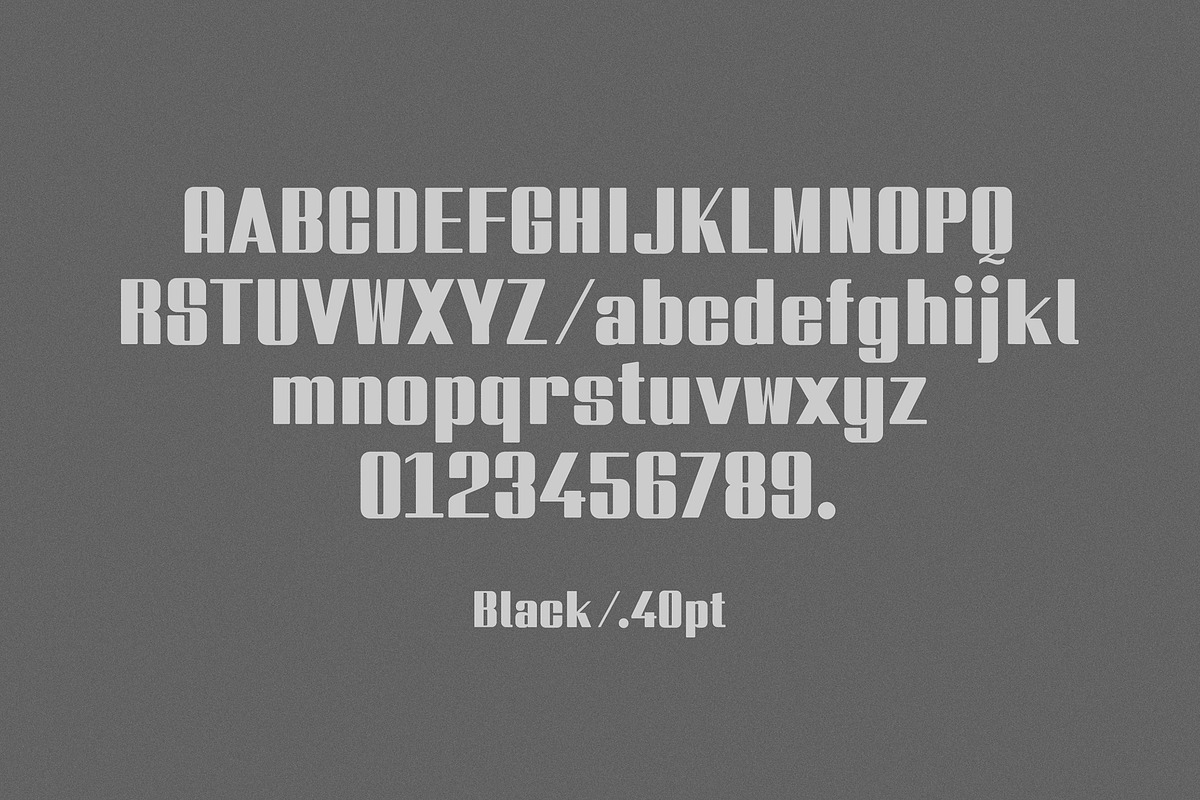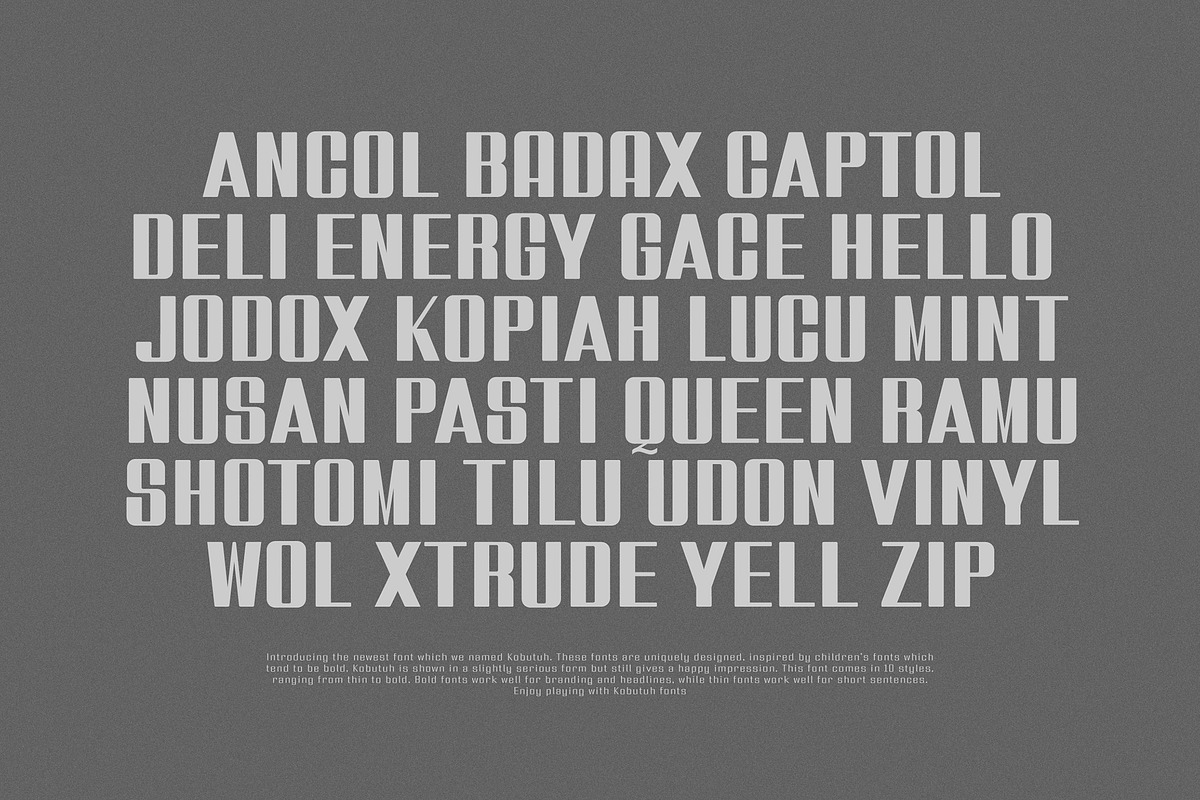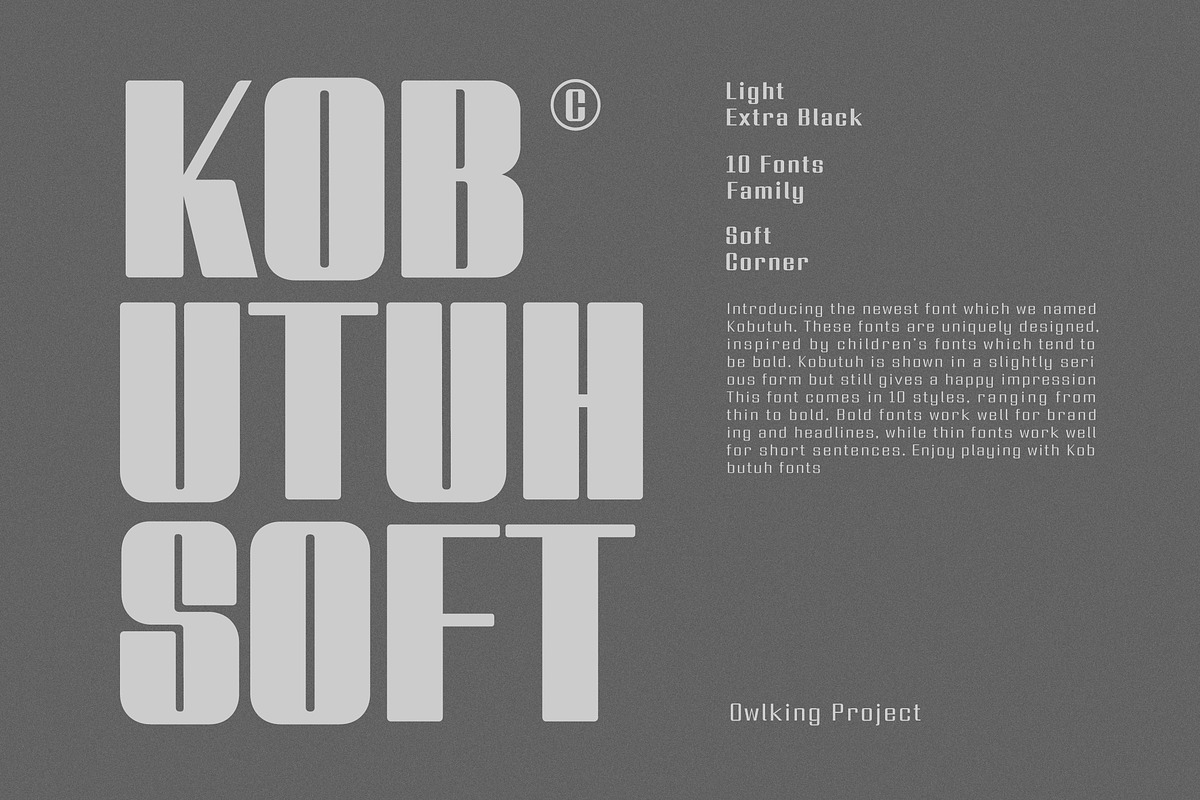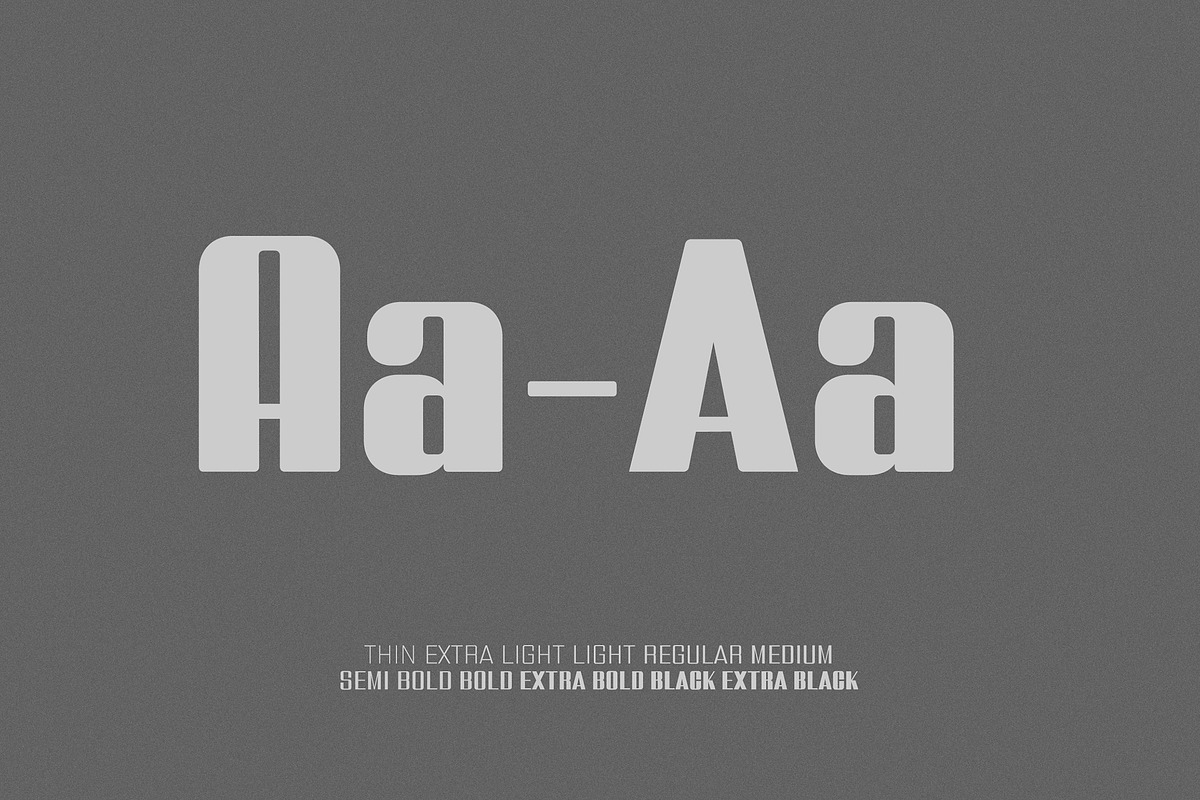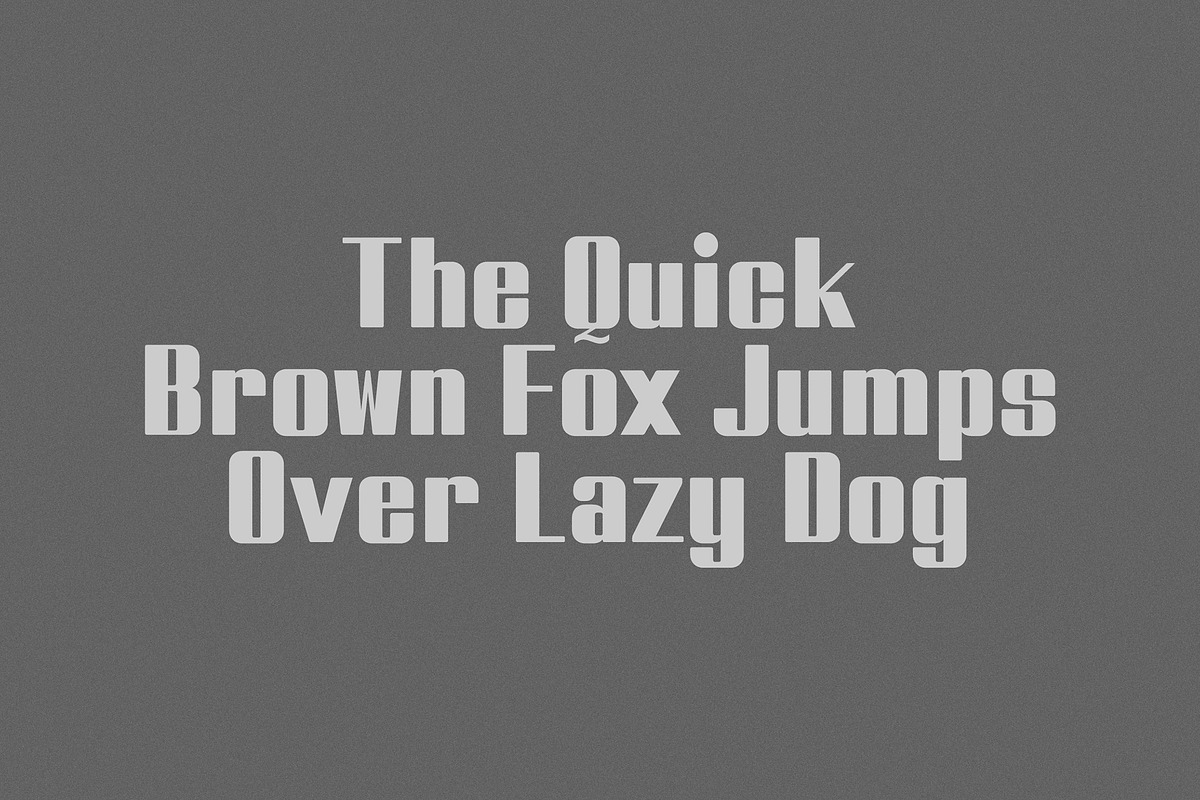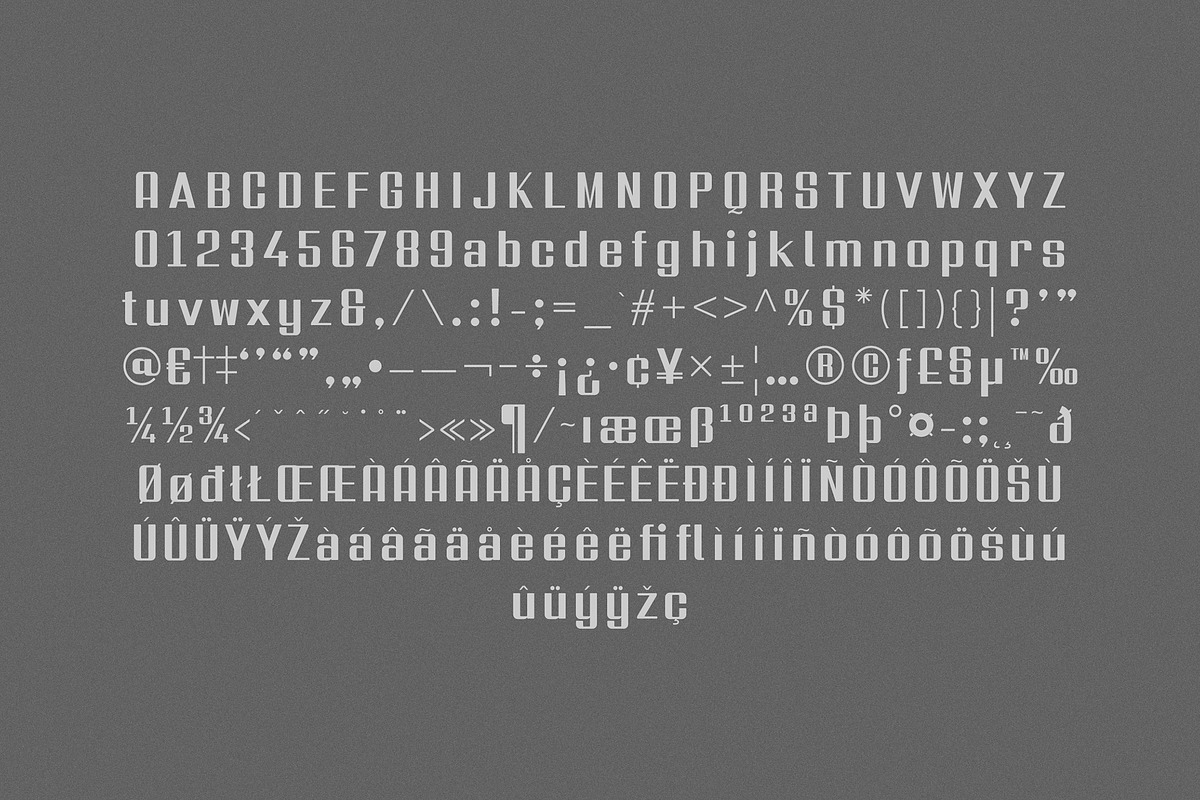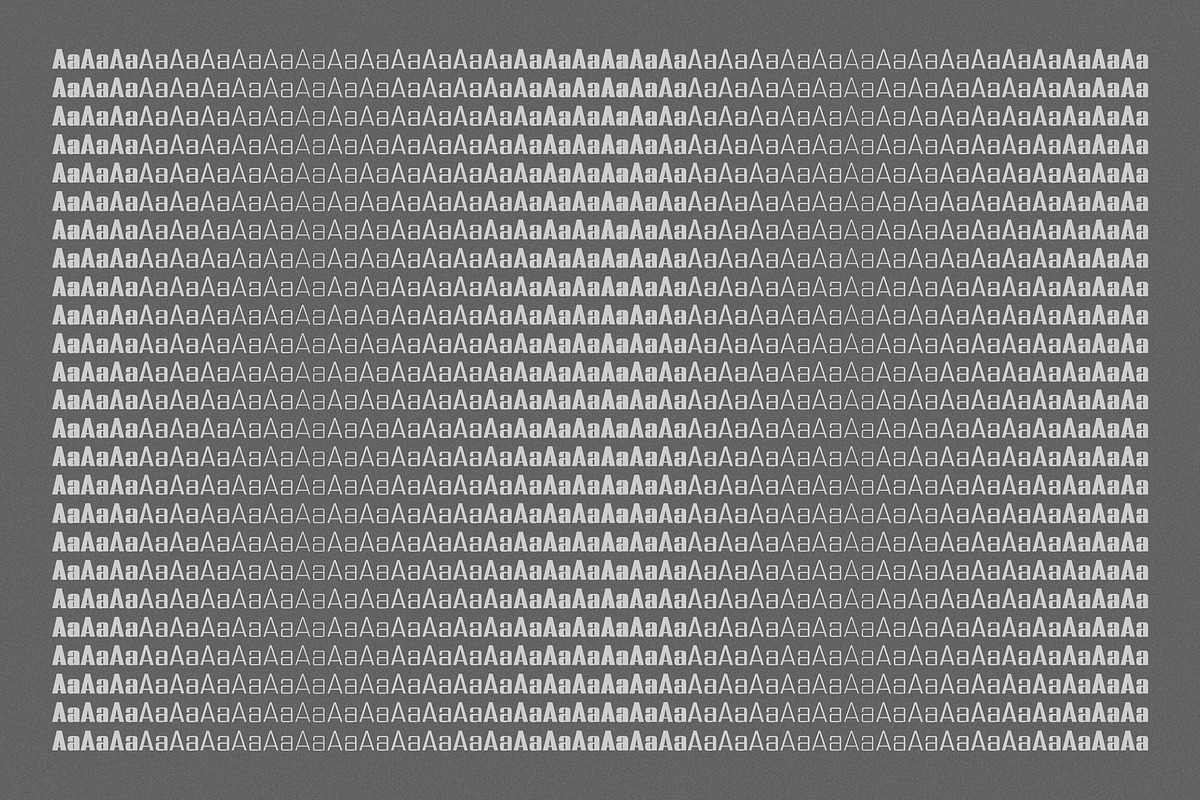
Kobutuh
Kobutuh Designer : ilen nalishawa | Owlking Project
Introducing the newest font we named Kobutuh. These fonts are uniquely designed, inspired by children's fonts which tend to be bold. Kobutuh is shown in a slightly serious form but still gives a happy impression with soft corner.
This font comes in 10 styles, ranging from thin to bold. Bold fonts work well for branding and headlines, while thin fonts work well for short sentences.